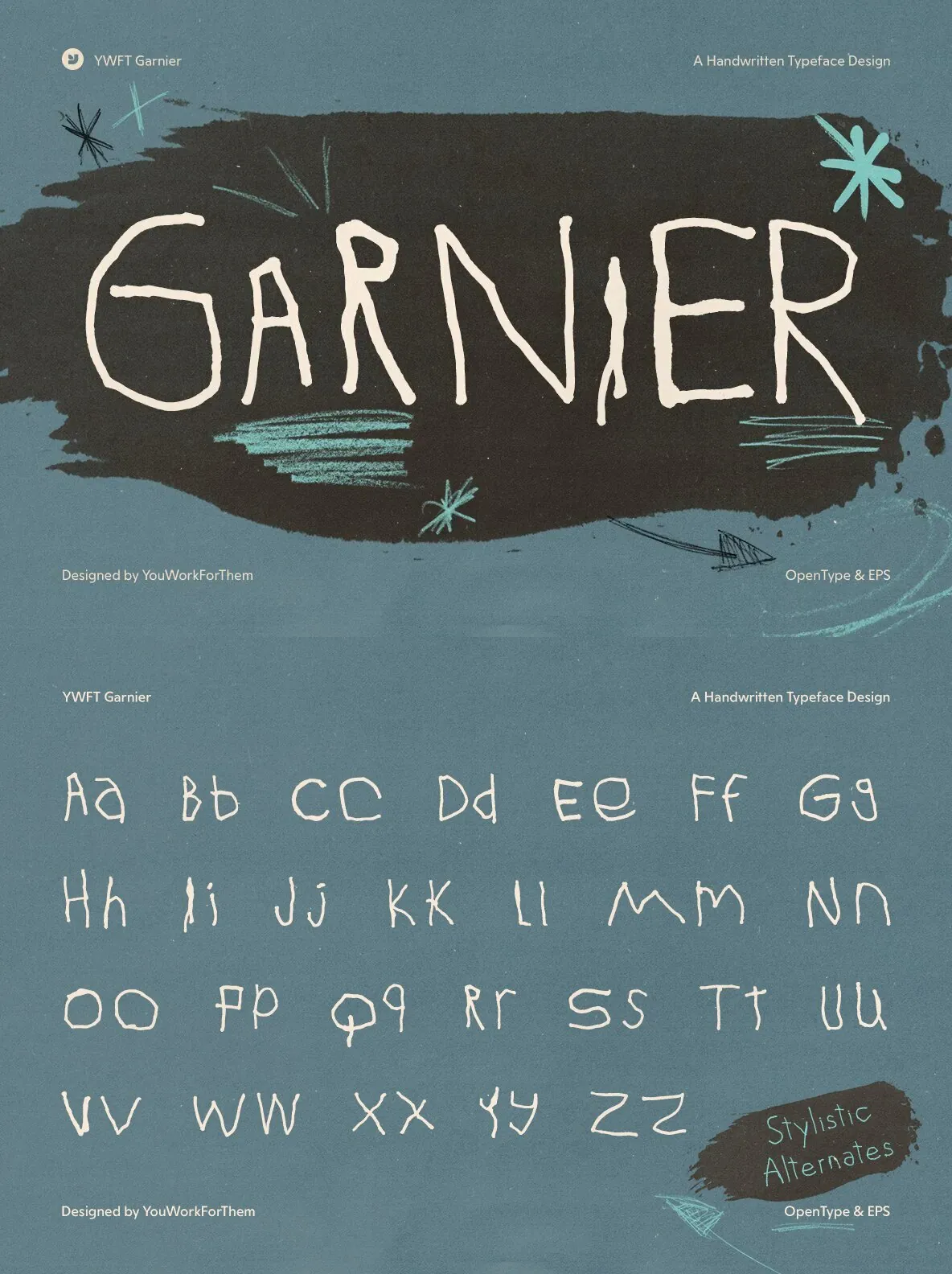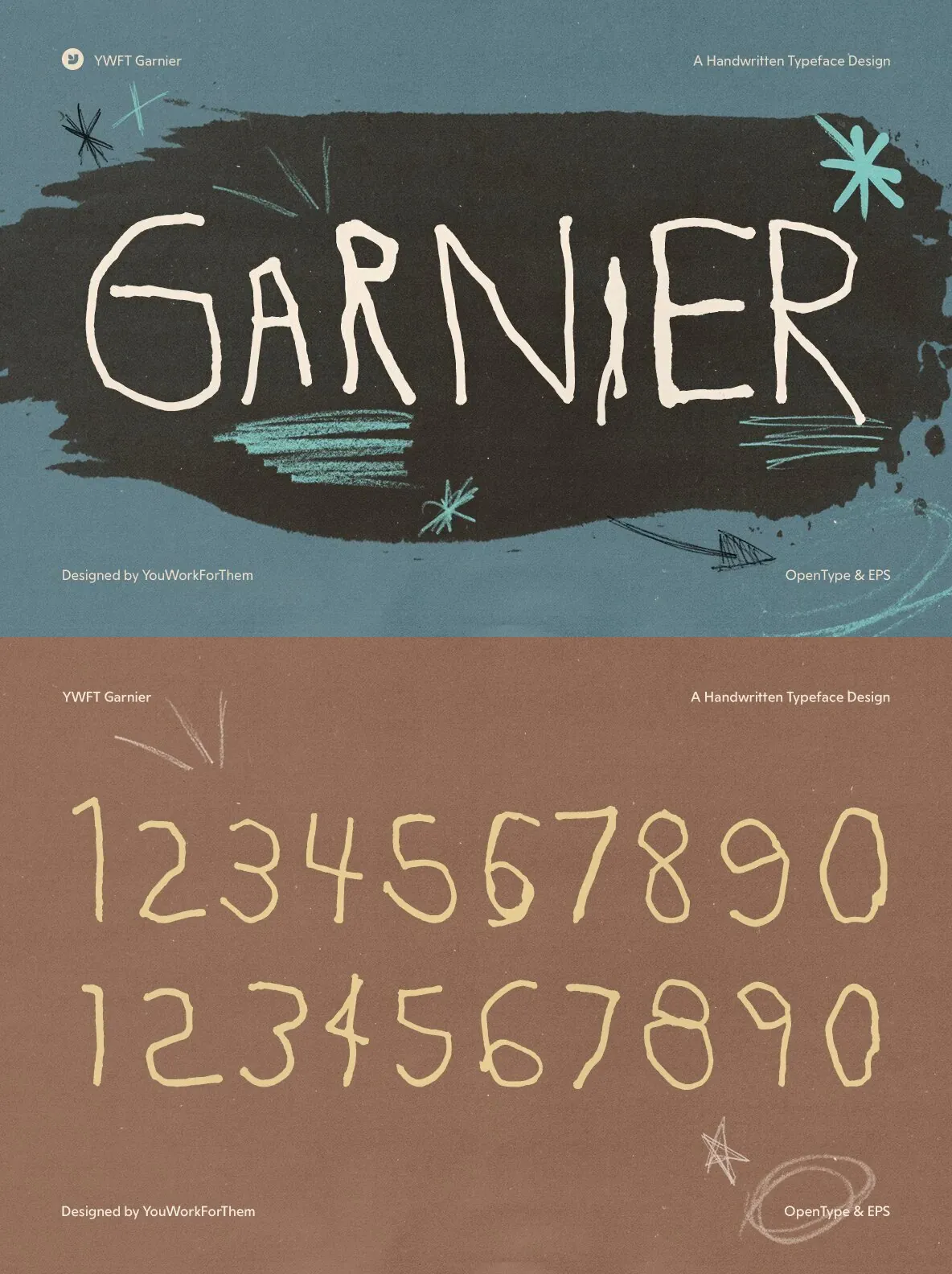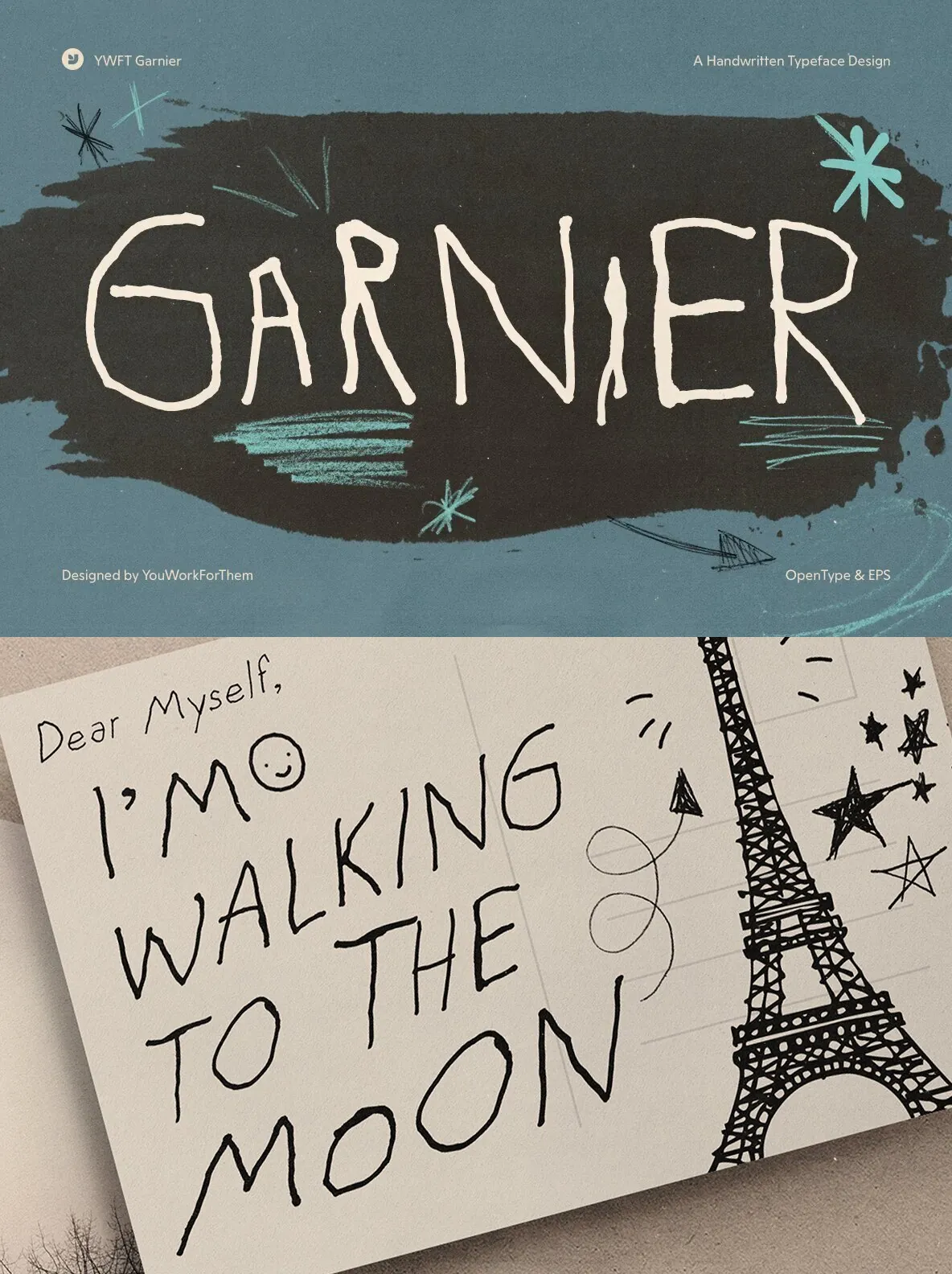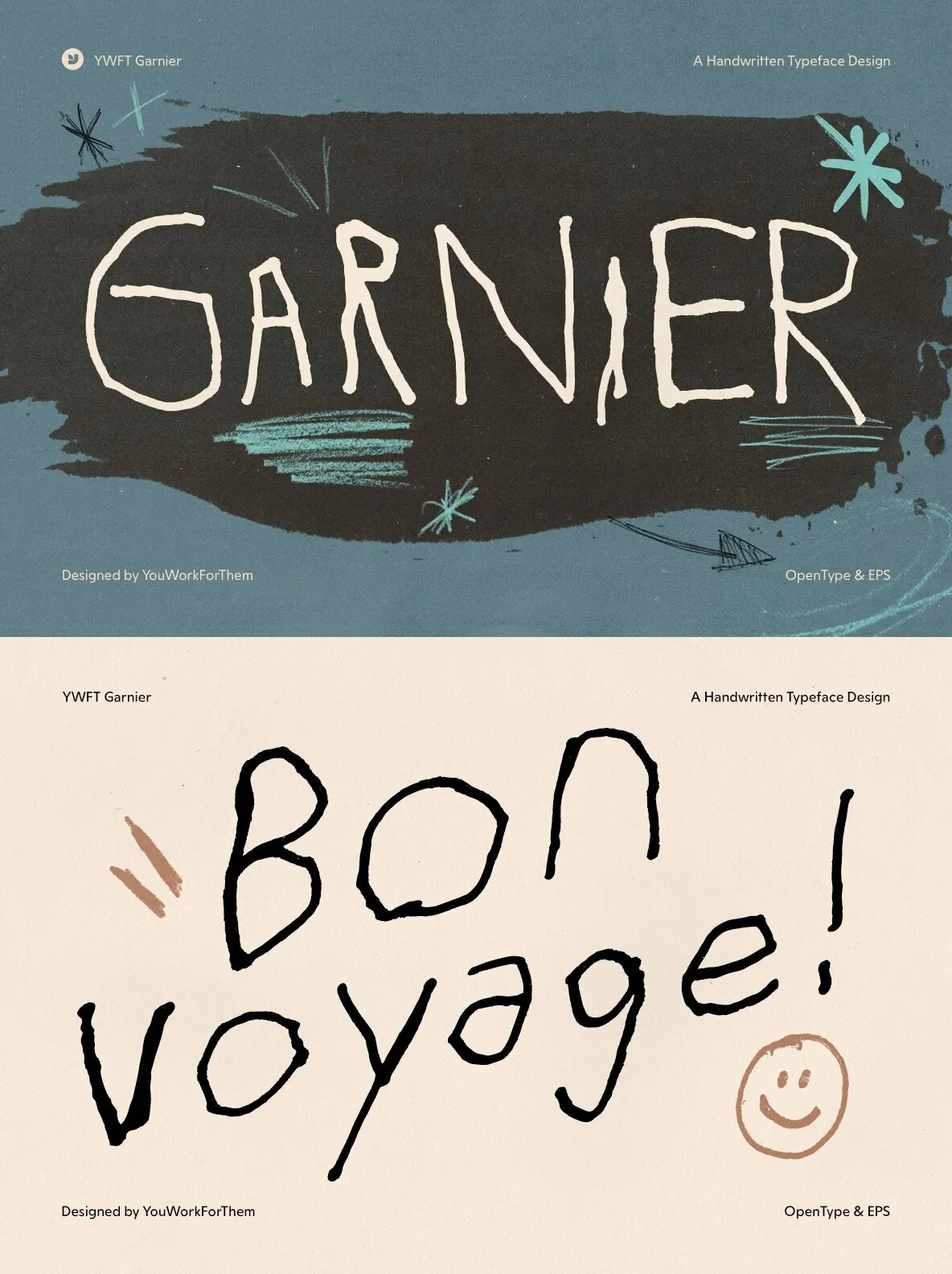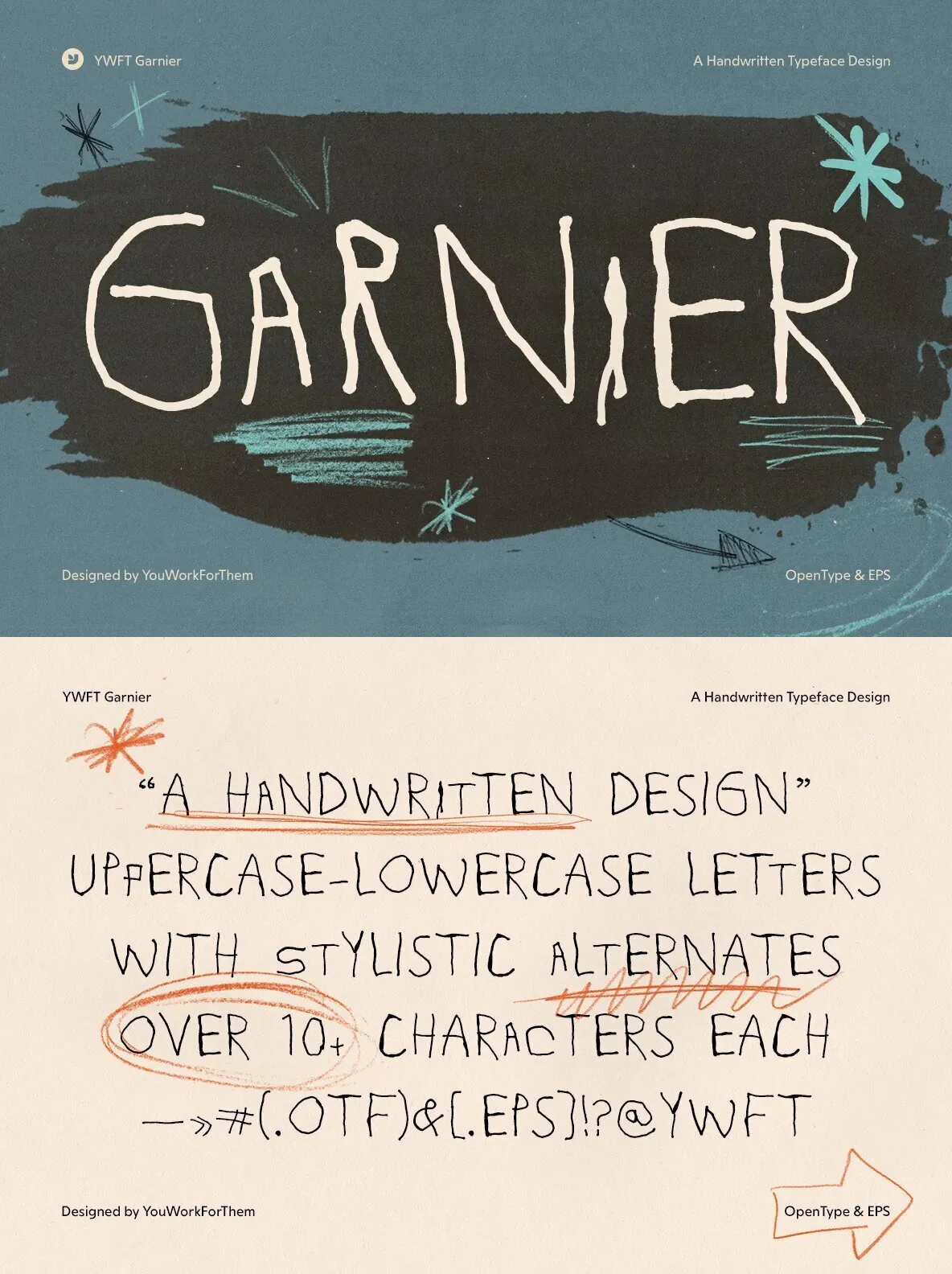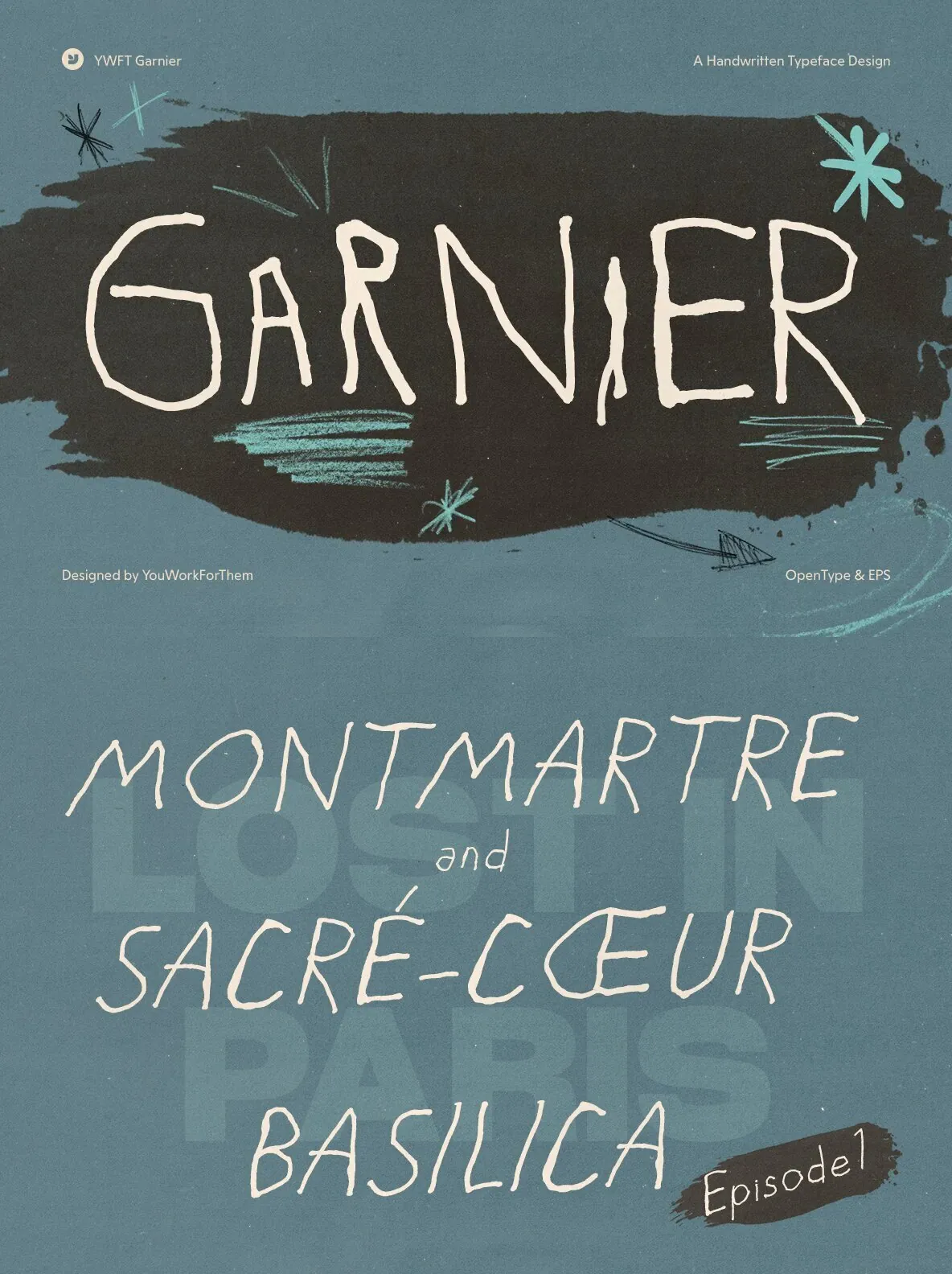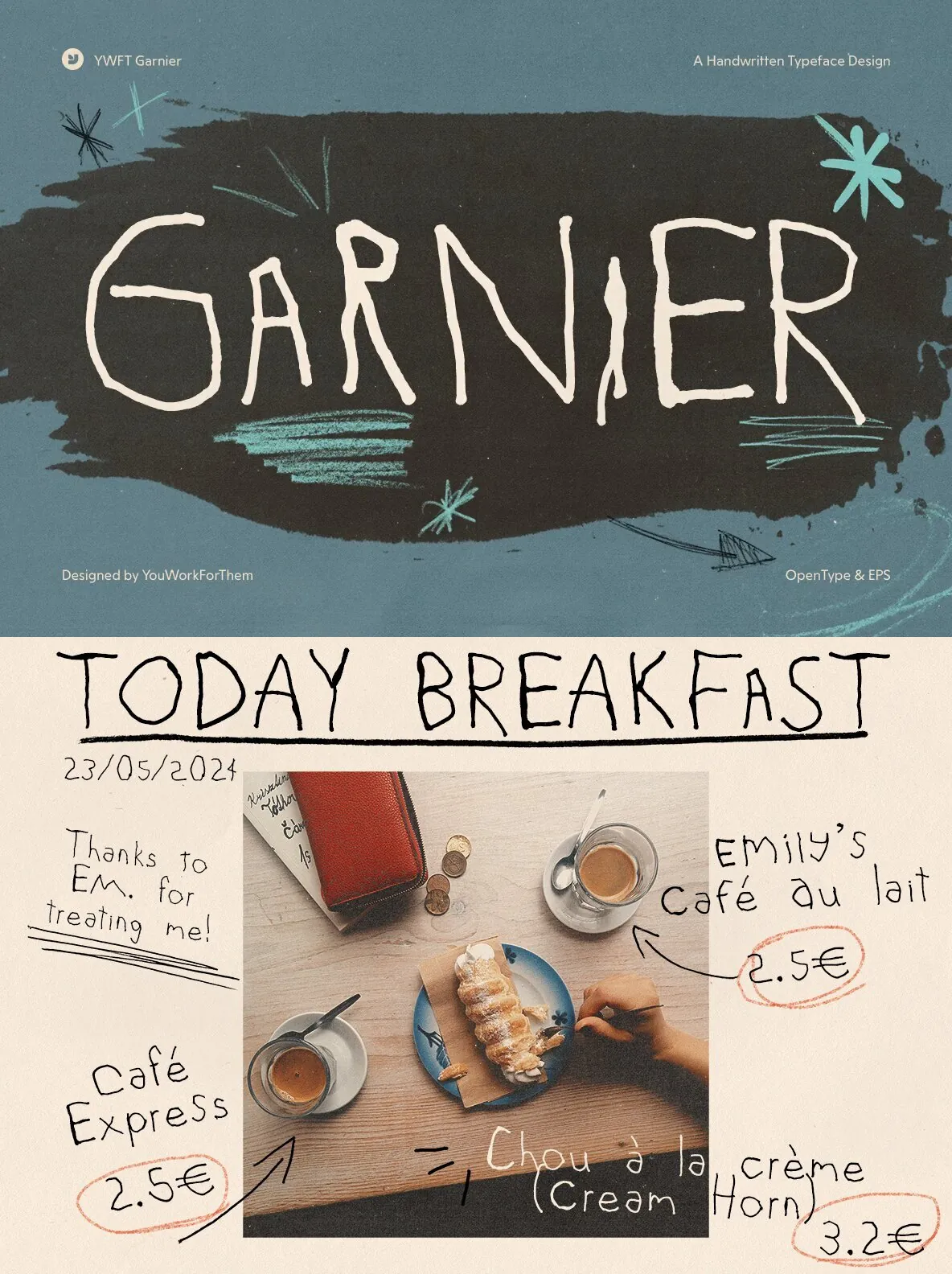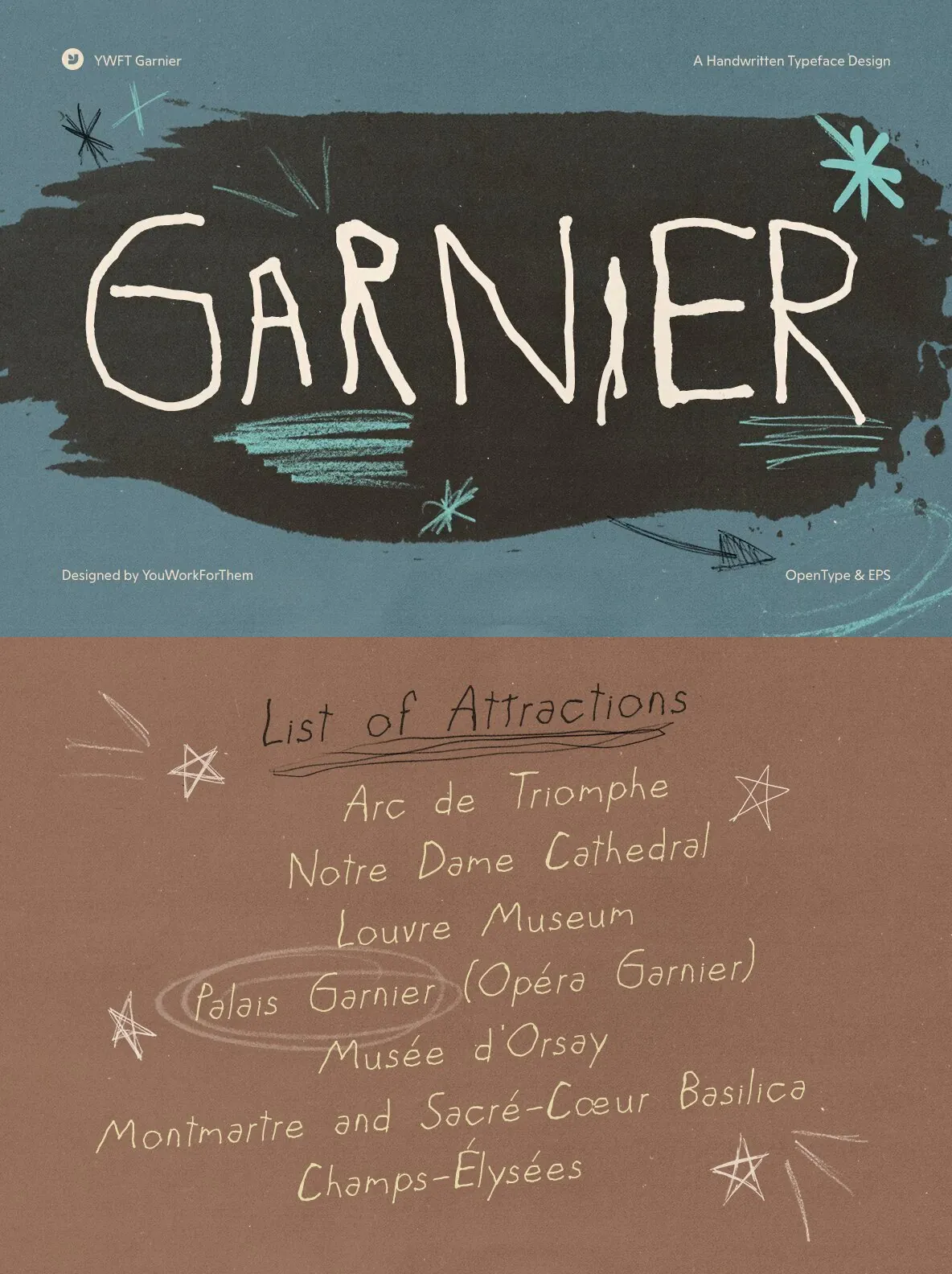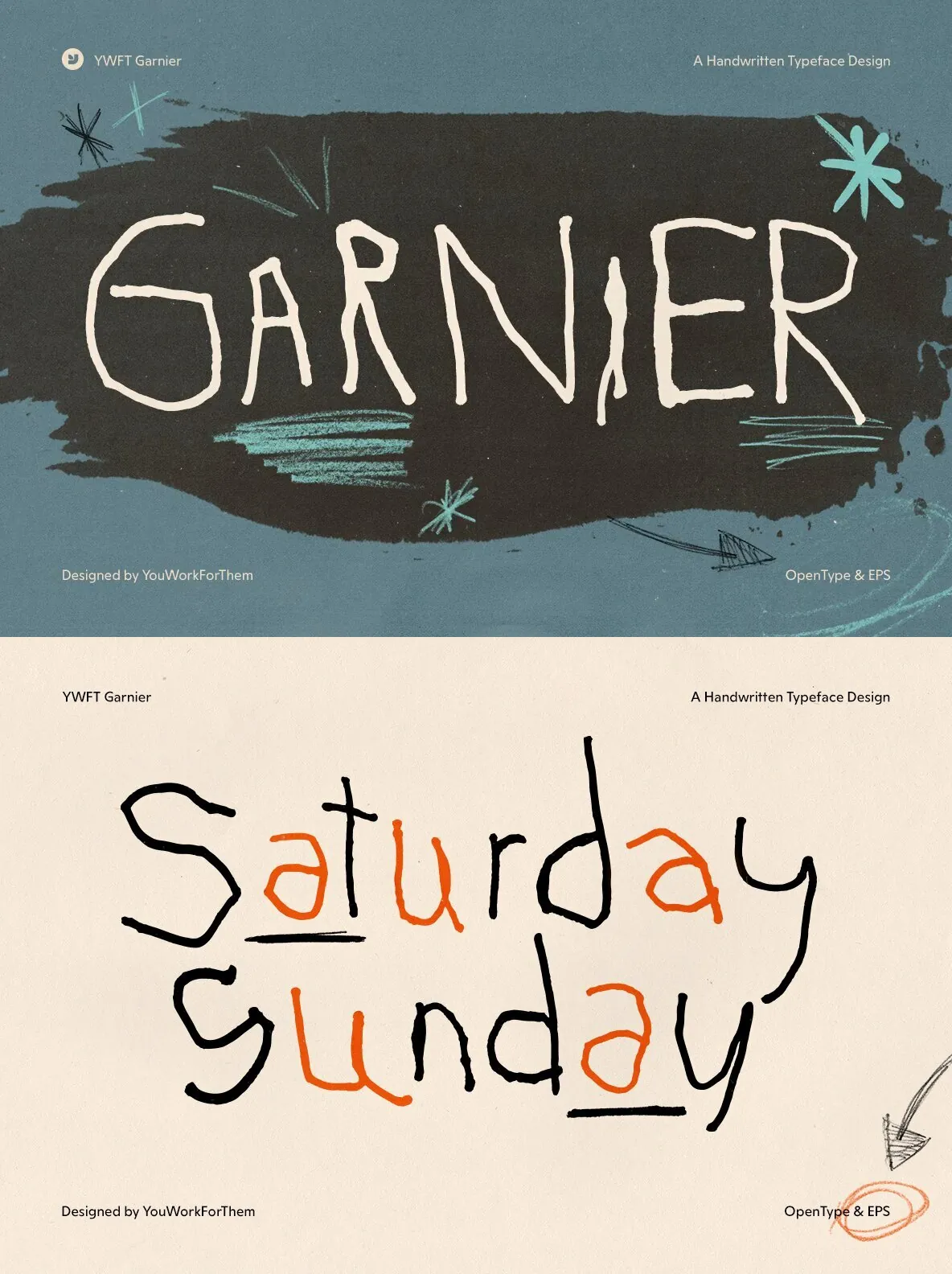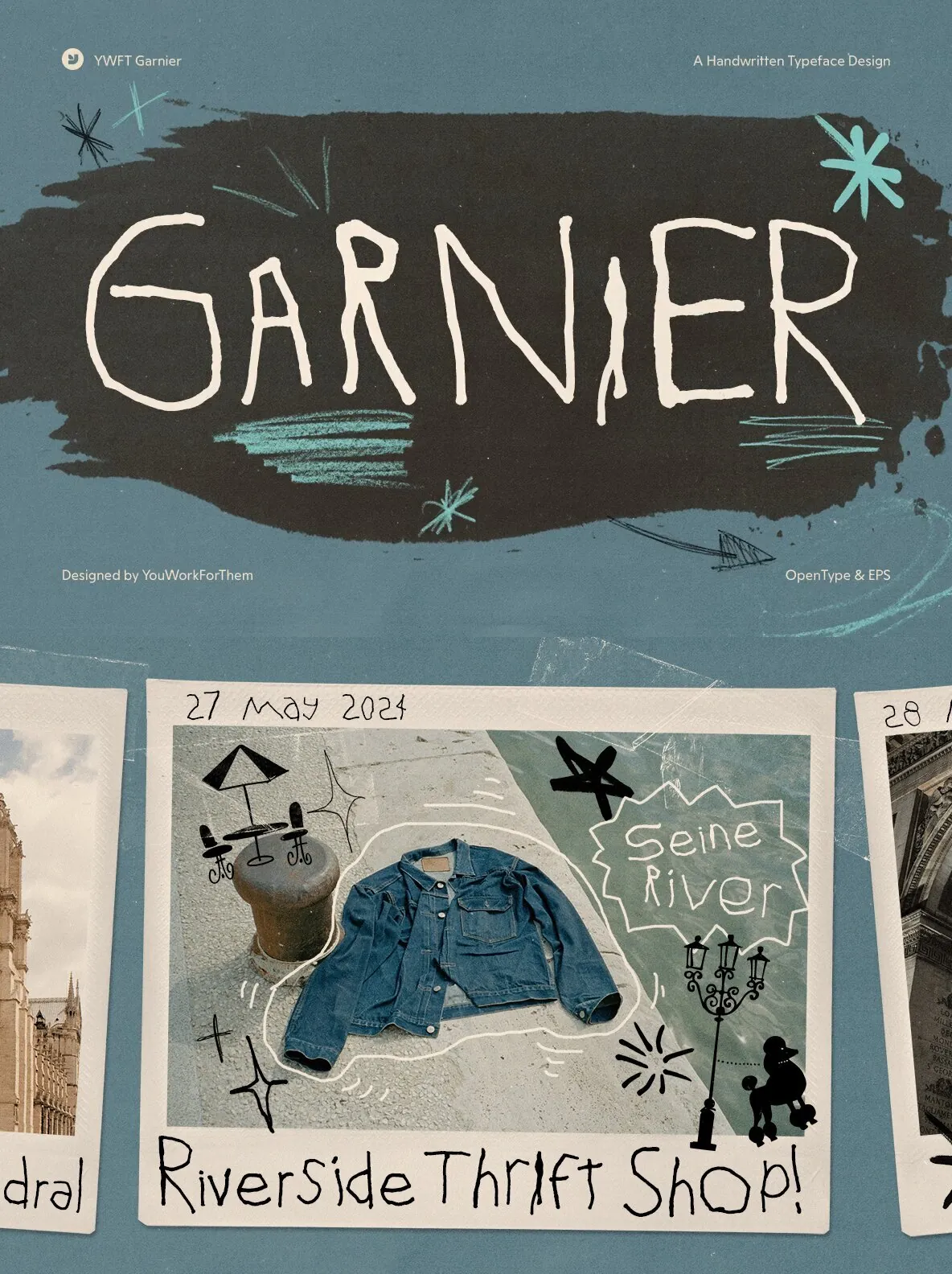
YWFT Garnier: A Playful Handwritten Font with a Unique Charm
YWFT Garnier brings a loose, juvenile style to your design projects, combining a playful, handwritten aesthetic with professional versatility. This font, once a handset, has been revitalized in OpenType format, featuring over 290 glyphs and various stylistic alternates. Ideal for informal and doodle-style text, YWFT Garnier adds a distinctive touch to any design.
Key Features of YWFT Garnier
Handwritten Style
: Perfect for creating informal, fun, and doodle-style designs.
OpenType Features
: Includes stylistic alternates for added creativity and flexibility.
Comprehensive Glyph Set
: Contains over 290 glyphs, offering a wide range of characters.
The Story Behind YWFT Garnier
Originally a handset font, YWFT Garnier has been brought out of the “asylum” in glorious OpenType format. Its seemingly sloppy appearance hides a sophisticated typographic code, making it a primitive masterpiece with endless design possibilities. This font is perfect for ransom notes, event flyers, or any project that needs a touch of playful spontaneity.
Ideal for Various Graphic Design Applications
YWFT Garnier’s unique style makes it suitable for:
Event Flyers
: Adds a playful and eye-catching element to promotional materials.
Ransom Notes and Posters
: Its informal style makes it perfect for creative and attention-grabbing designs.
Casual Branding
: Ideal for brands looking to convey a fun and approachable image.